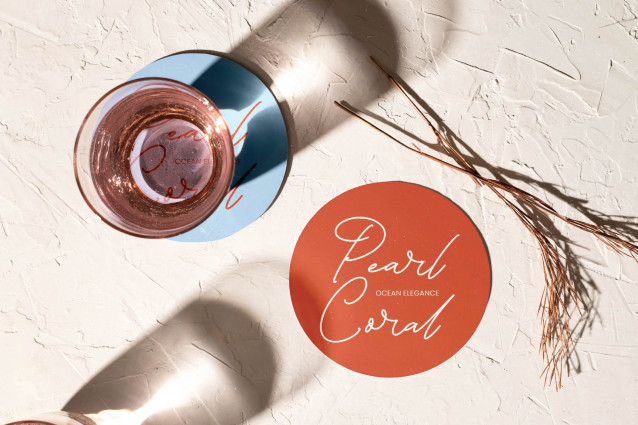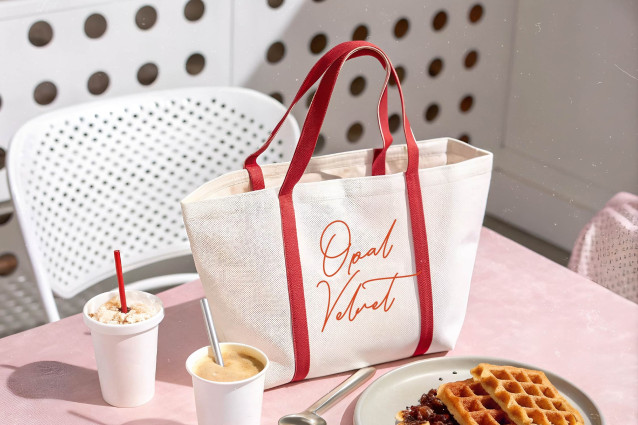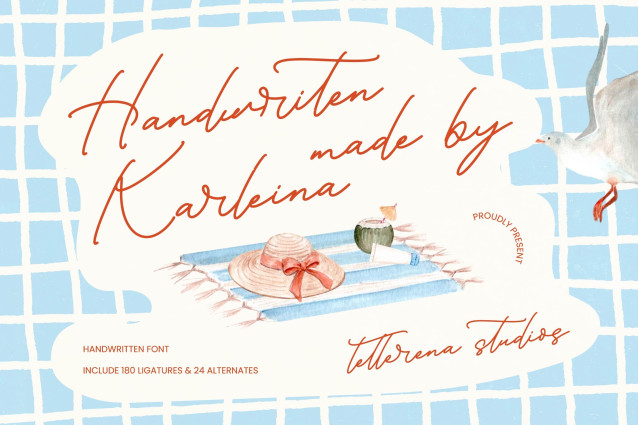
Handwritten Karleina VERSI Font
Elevate your creative vision with a touch of organic elegance. Karleina – Handwritten Font is a masterclass in authentic script design, offering a fluid and natural aesthetic that mimics genuine penmanship. Its graceful strokes and effortless flow provide a sophisticated yet approachable character, perfect for designers looking to infuse their work with a personalized touch. By balancing artistic flair with high legibility, this typeface ensures your message remains clear while radiating a warm, hand-crafted charm.
Unleash limitless creative potential with a comprehensive set of professional features. This premium typeface includes over 180 ligatures and 24 alternates, allowing for unique letter combinations that maintain a custom-lettered feel. With its extensive multilingual support, Handwritten Karleina – Handwritten Font adapts seamlessly across global markets, making it incredibly versatile for international projects. This robust character set ensures that your branding remains consistent and impactful, regardless of the linguistic requirements or the scale of the global campaign.
Discover the perfect typographic partner for high-end design and commercial excellence. Handwritten Karleina – Handwritten Font is the ideal choice for luxury branding, wedding invitations, and boutique packaging where a sense of exclusivity is paramount. It is also perfect for social media graphics, editorial layouts, and lifestyle photography overlays that require a chic, modern vibe. Whether used for logo design or high-impact advertising, this font delivers a polished and premium visual identity that resonates with discerning audiences.